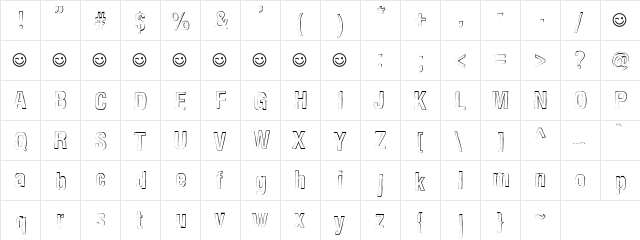
Newside FP Outline Alternate Regular
Design Context for Newside FP Outline Alternate Typeface
Newside FP Outline Alternate is built around its visual character rather than neutral utility — its distinctive forms are designed to make an impression at display sizes.
Font Pairing: Pair with a clean neutral sans-serif for body copy to let Newside FP Outline Alternate's character lead without overwhelming the composition.
Pro Tip: Treat Newside FP Outline Alternate as the centrepiece of your typographic hierarchy. One strong heading set in a decorative face can carry an entire layout.